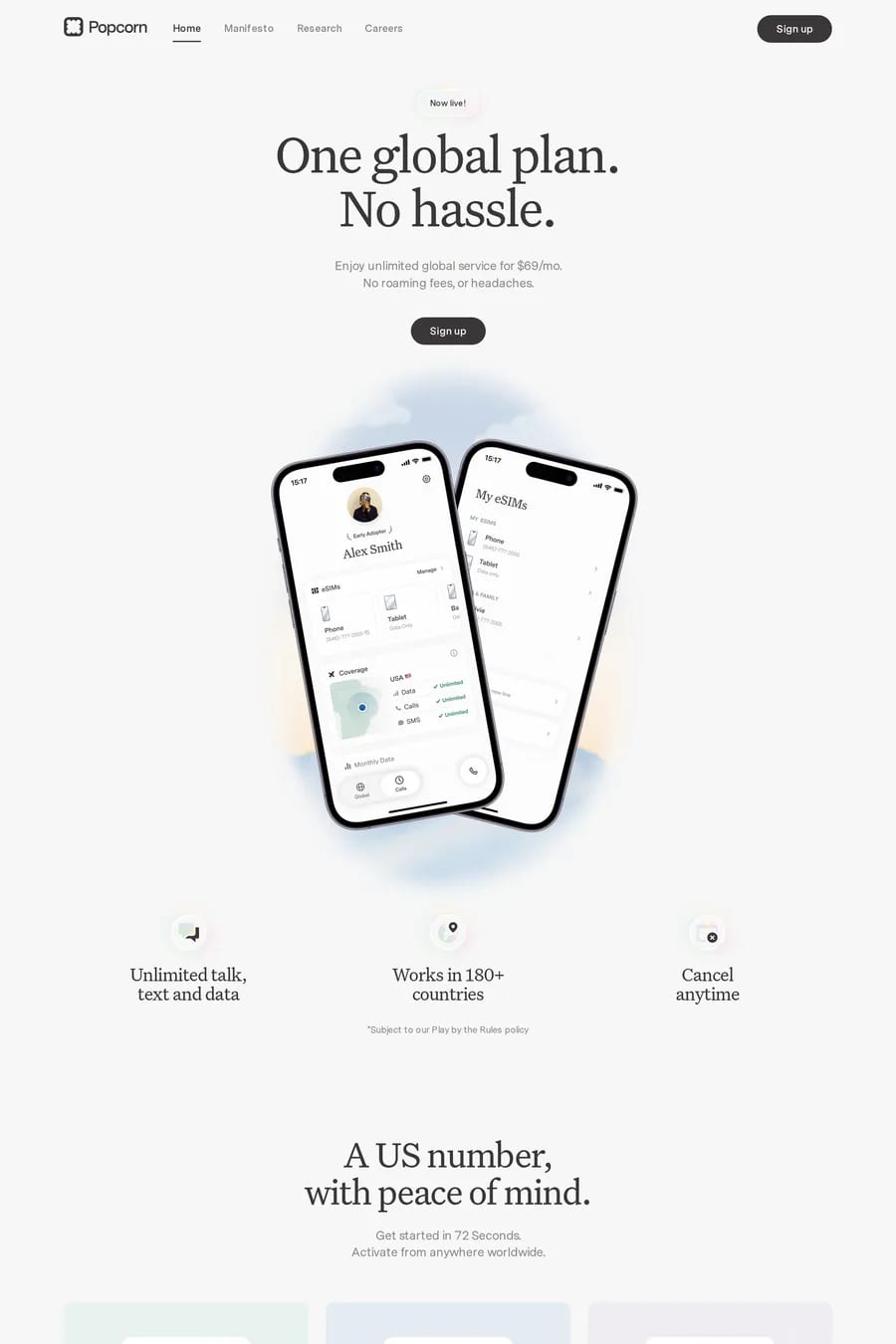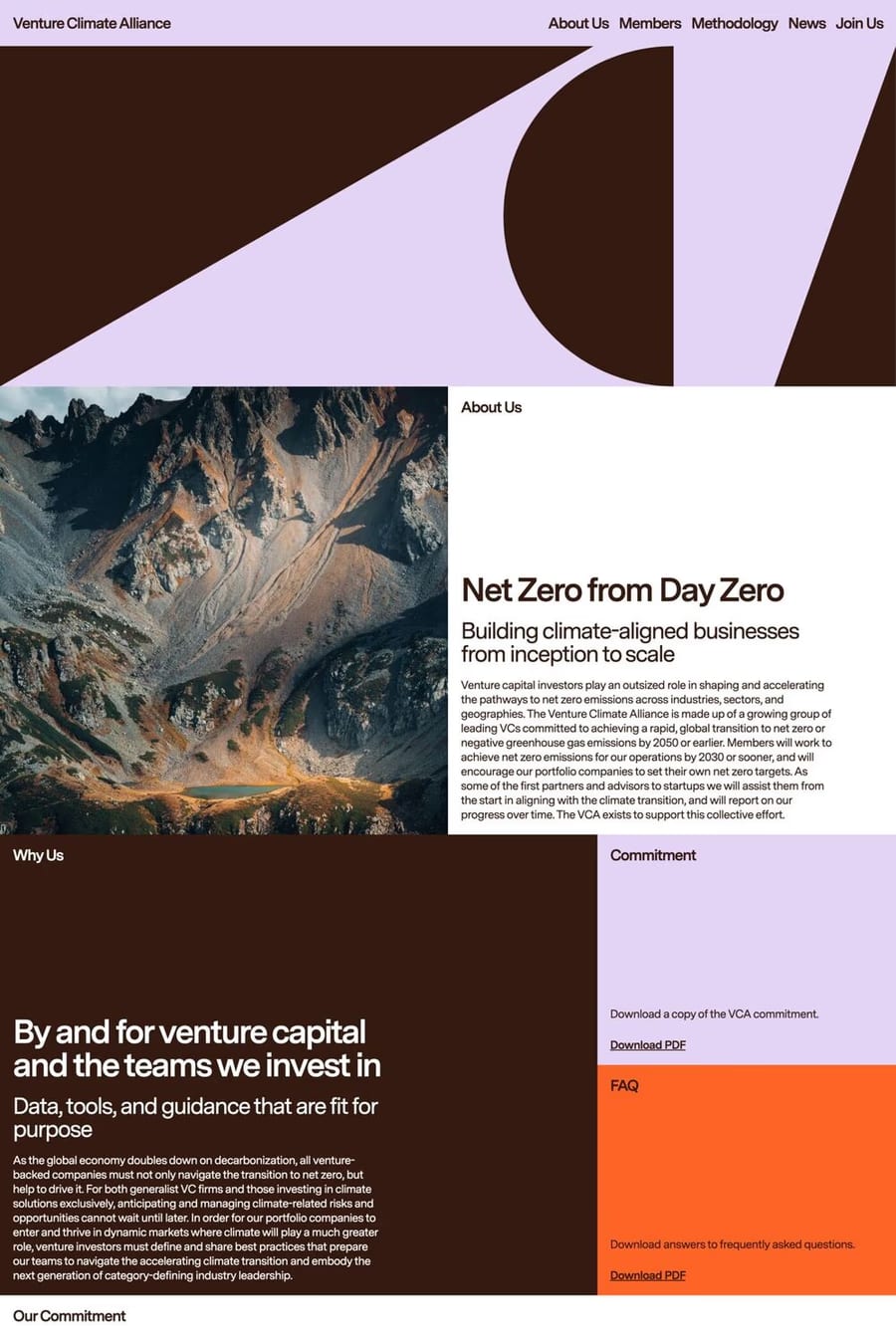
Messina Sans is a sans-serif typeface from Luzi Type.
Messina is a multifaceted typeface that meets the demands of contemporary design. With its diverse collection of Serif, Sans, and Modern styles, Messina offers a comprehensive solution for a wide range of applications.